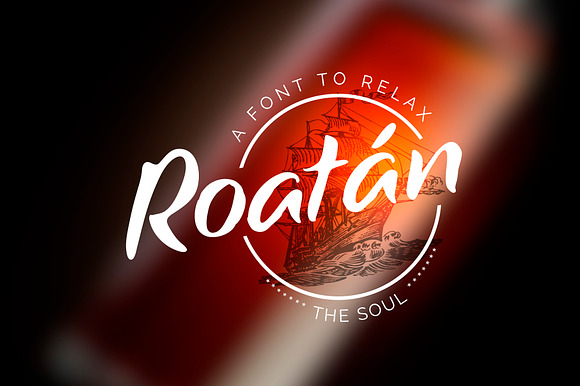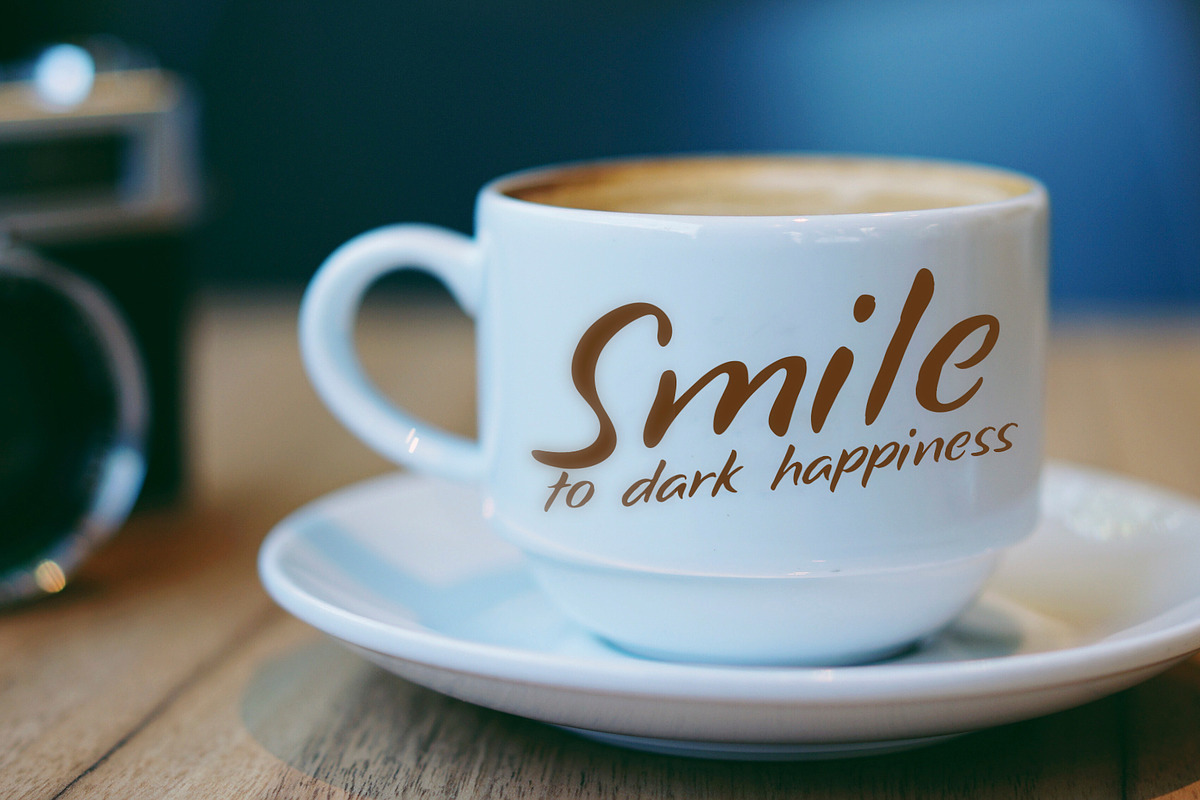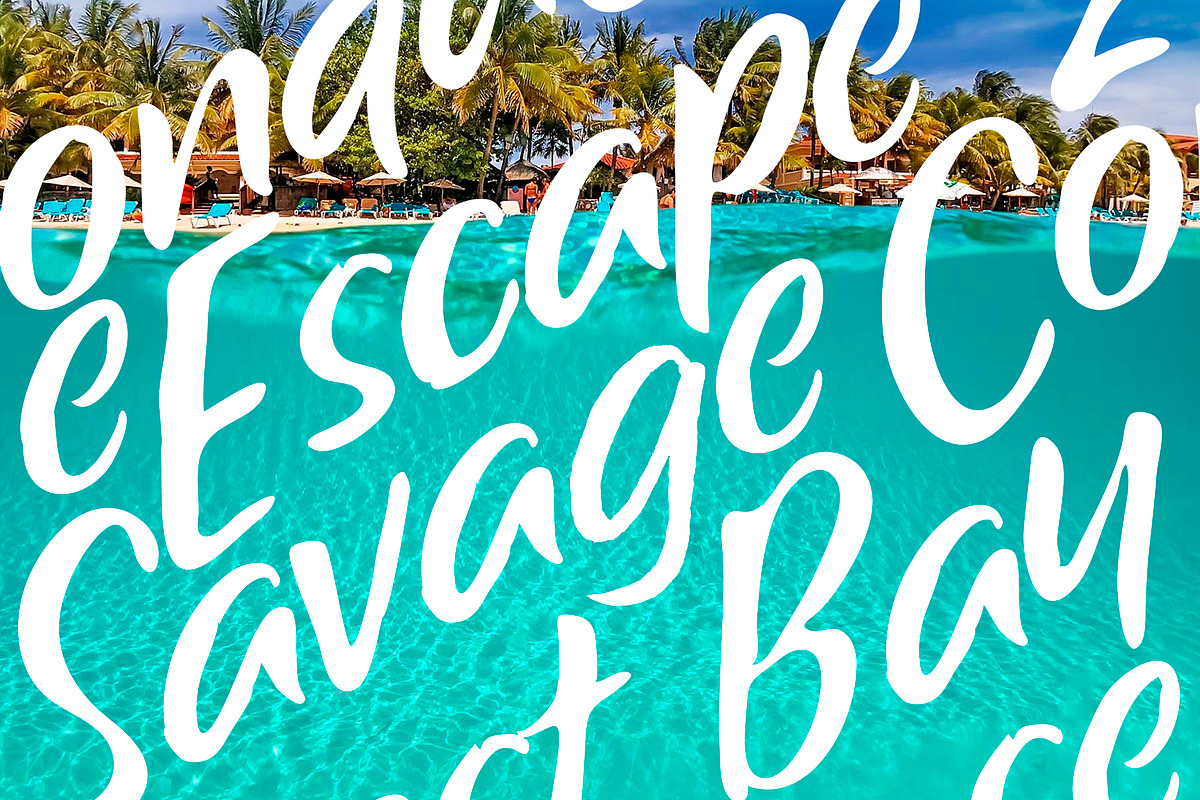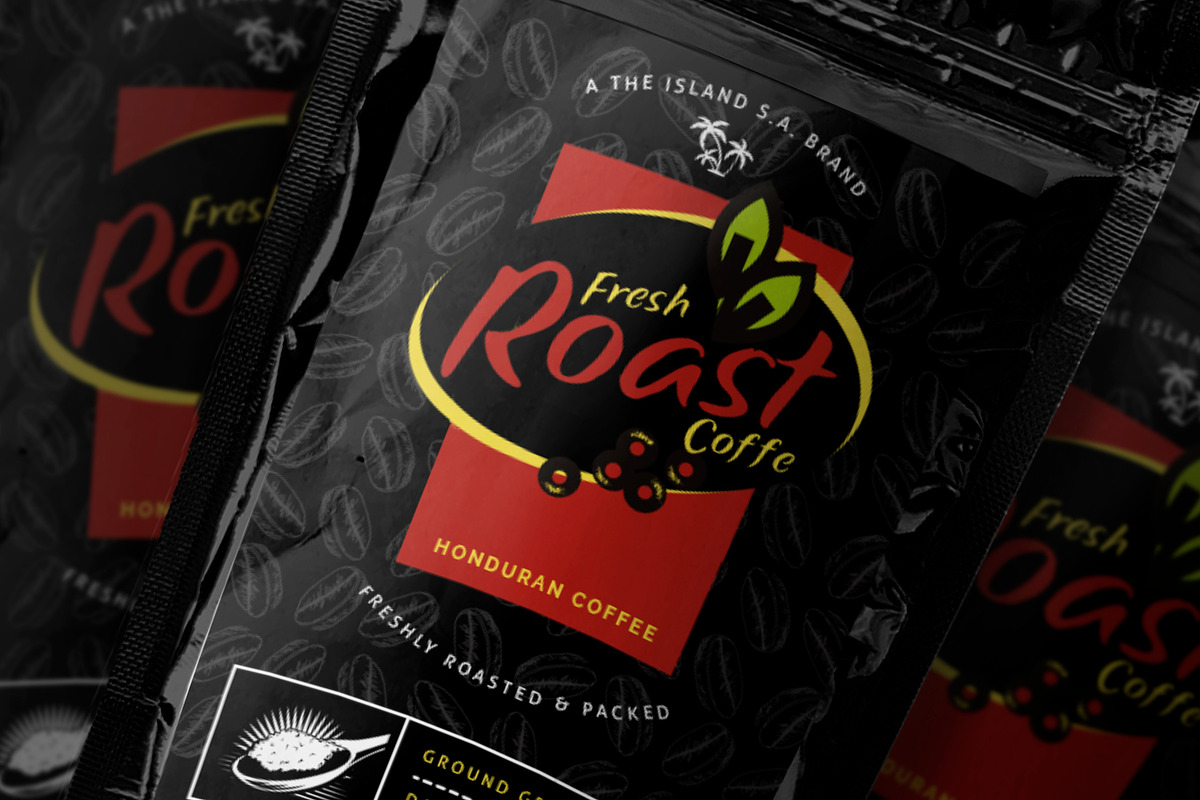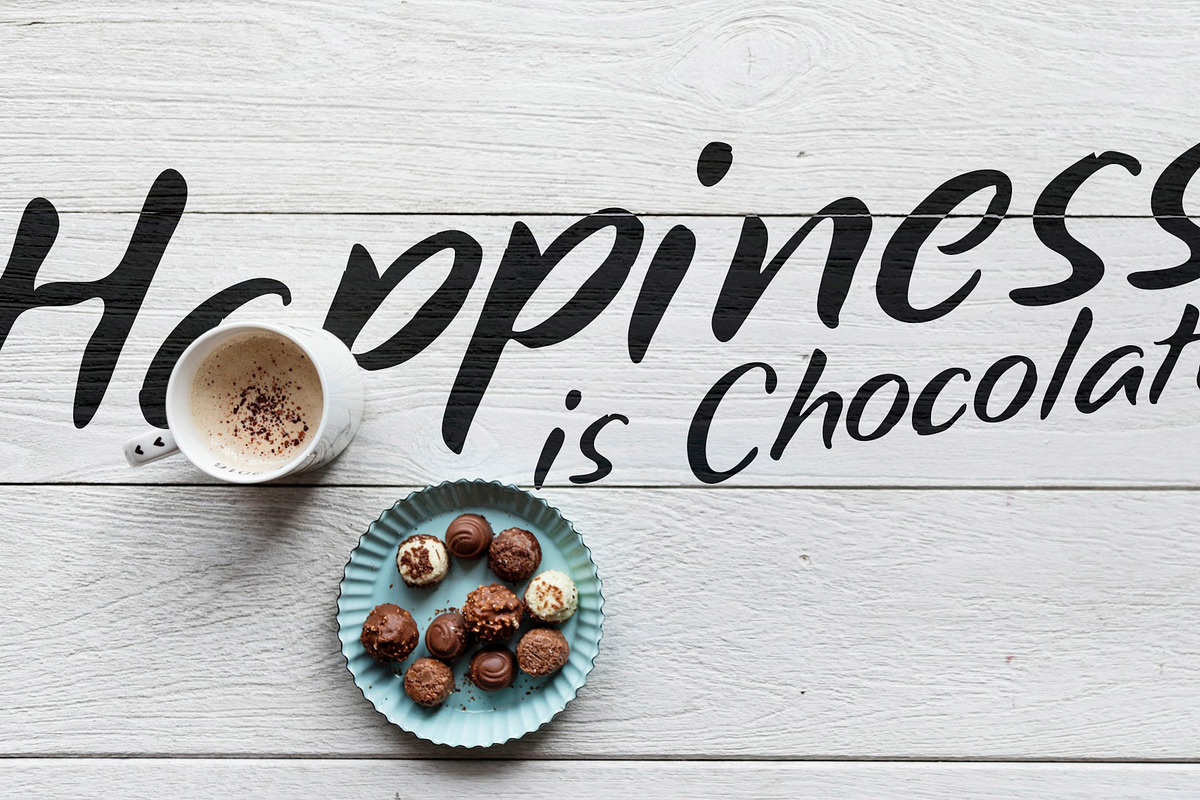
Roatan a font to relax the soul
Roatan is an Island in the Caribbean, all the people who go to these place finish in love, cause at the moment you put a feet in there you enter in the paradise, this font was inspired in these feeling.
I hope that i can put in your works the spirit of this place with this relaxing hand made type.